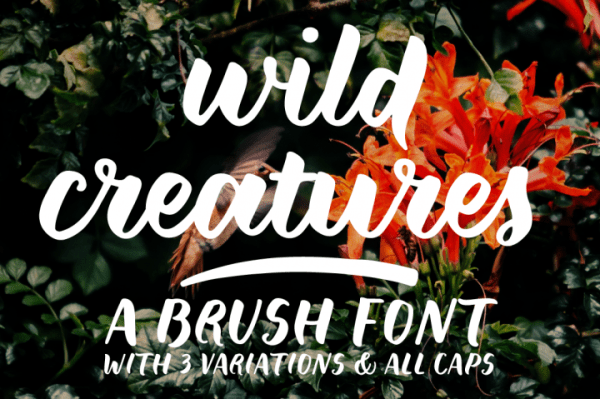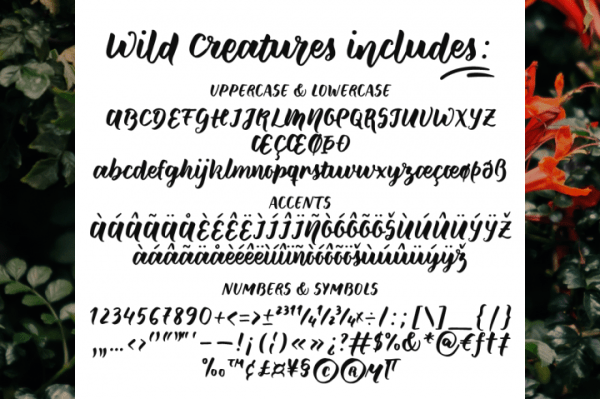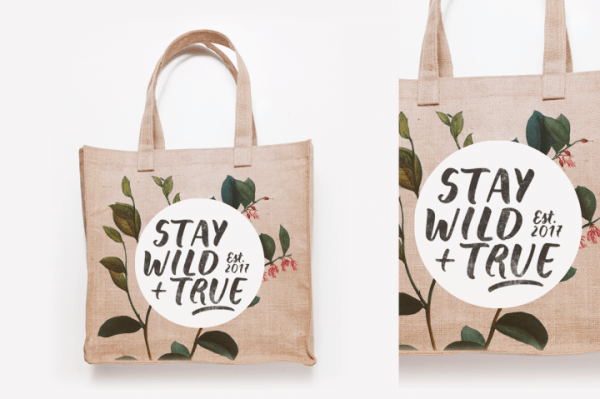
Freebie Wednesday: Wild Creatures Font
Wild Creatures Font (designed by Ana’s Font) is a beautiful brush font and totally free for the rest of this week!